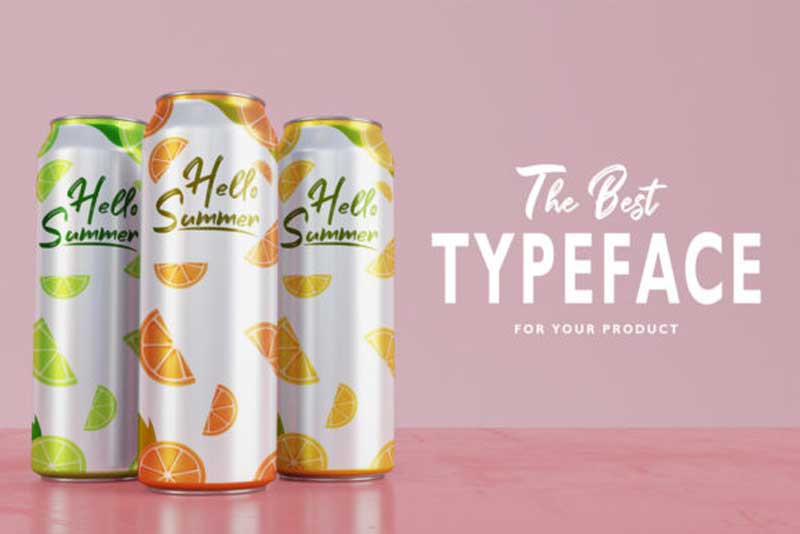
Khattab Script and Handwritten Font. Best choice for freestyles cool font. make your design use attraction and creative by this font. Khattab is a Modern Script Font Comes With two Variants, Multilanguage Support, Support Number, Symbol and Numeric